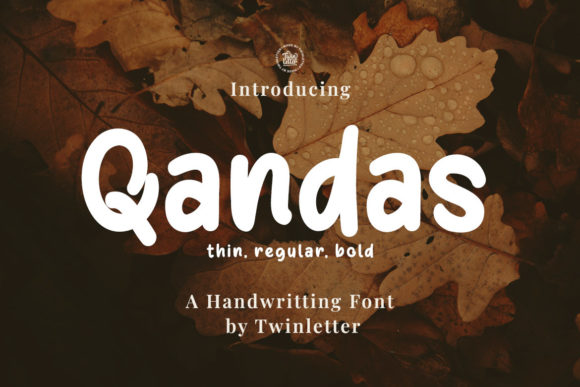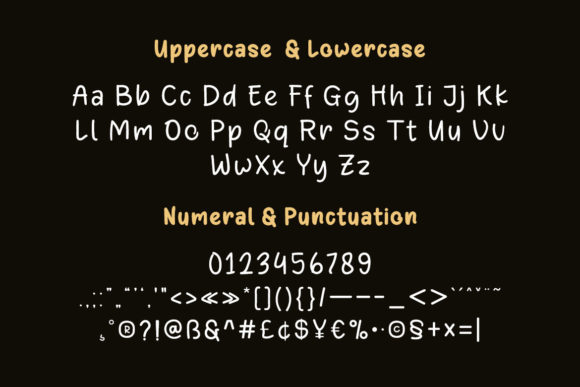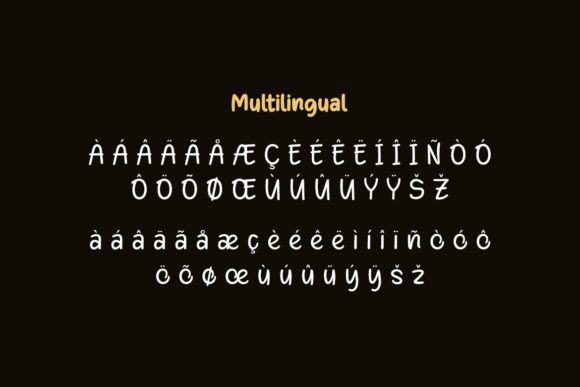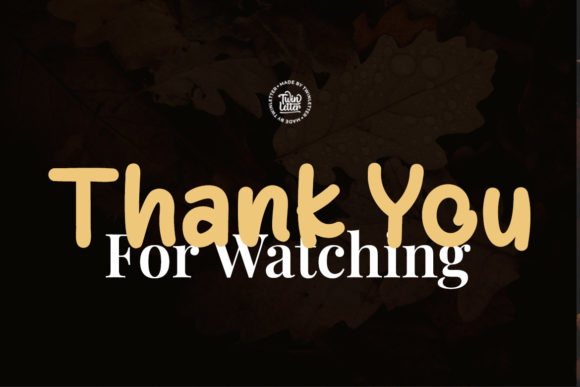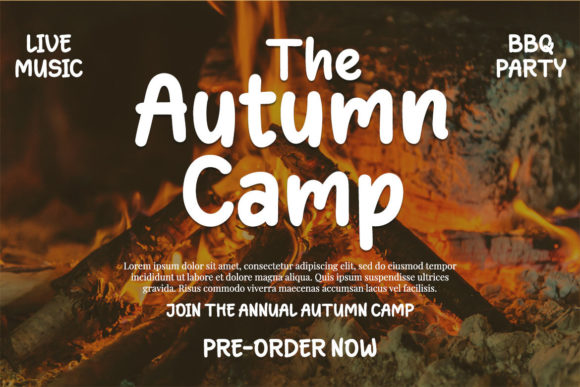
Qandas Font
About Qandas Font
Qandas is a clean and fresh handwritten font that has been polished to seem neat and professional, but also versatile and relaxed. No matter the topic, this font will be an incredible asset to your fonts’ library, as it has the potential to elevate any creation.